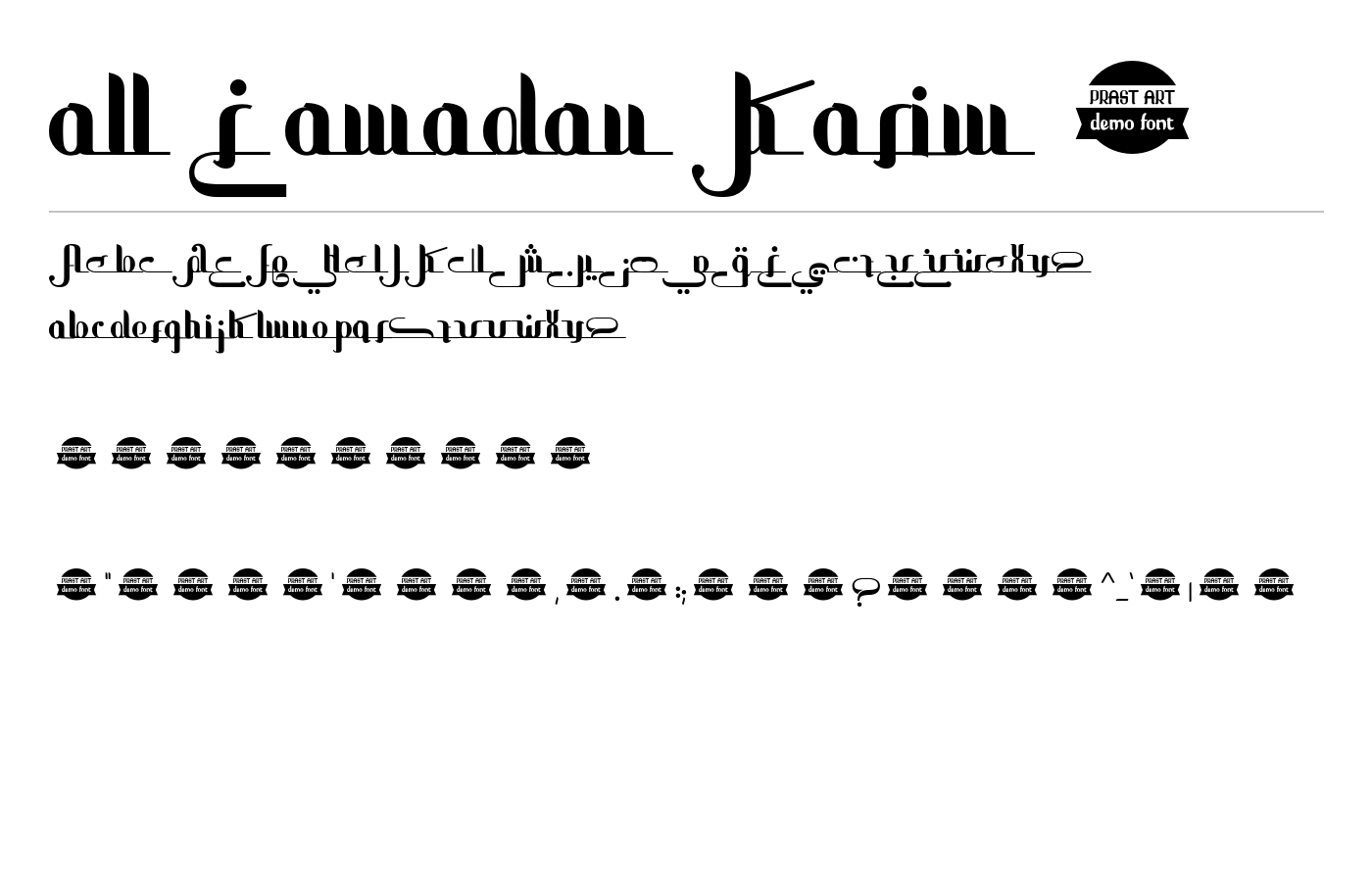
All Ramadan Karim is a unique, decorative serif font with a modern, artistic flair. Its slender, elongated letterforms feature elegant curves and distinctive horizontal lines extending from many characters, creating a sophisticated yet playful rhythm. This font suits creative headlines, cultural event branding, or stylish packaging where a mix of tradition and contemporary design is desired.